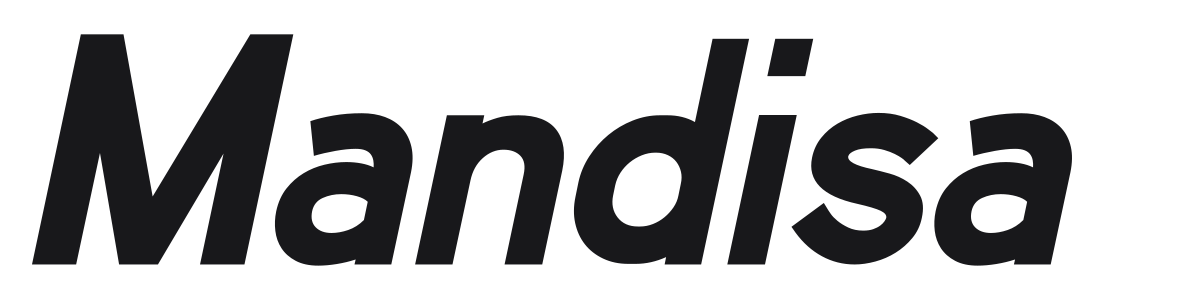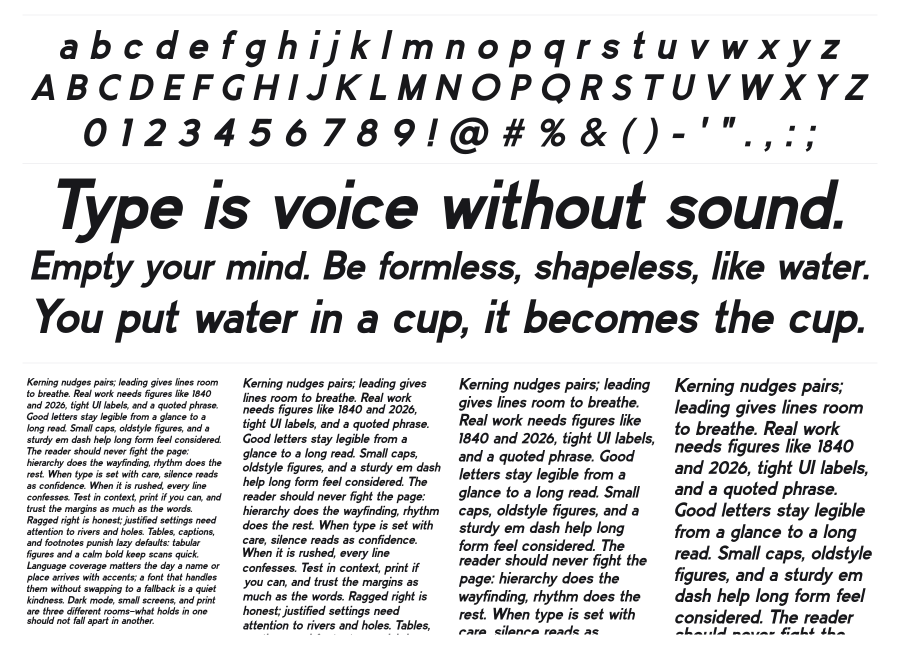
Mandisa
Mandisa is a bold geometric sans-serif with smooth rounded terminals and a confident, even stroke weight. The wide proportions and generous x-height make it feel approachable without losing authority. It sits comfortably in branding and headline contexts where a modern, clean voice is needed.